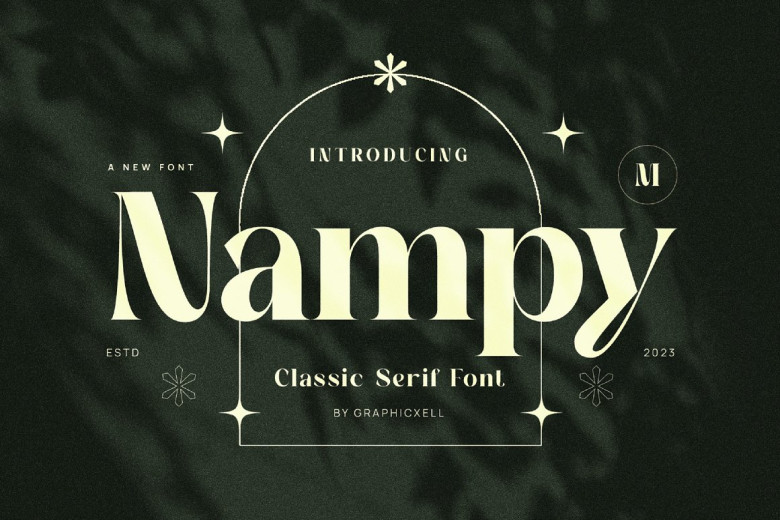
Nampy Font
Nampy font is a captivating and elegant font for logo and branding designs, perfect for logos, branding projects wedding designs, social media ads, posts, packaging for products, packaging of products, label designs, photography, invitations, watermarks & any project that needs accessibility. Don’t be let down when purchasing this font!! You won’t be sorry!!
Nampy Elegant Serif Font